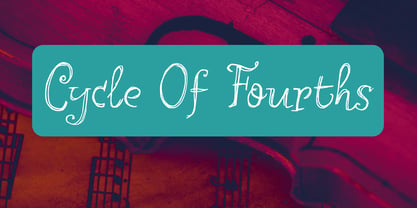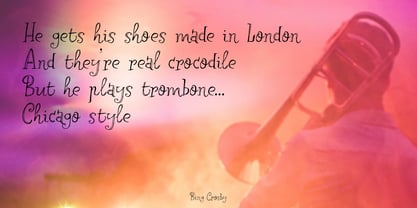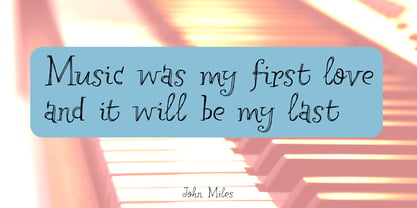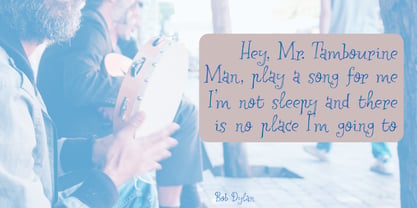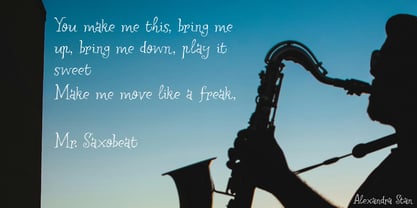
Cycle Of Fourths Pro
by Hanoded
The Cycle Of Fourths Pro Font Family was designed by David Kerkhoff and published by Hanoded. Cycle Of Fourths Pro contains 2 styles and family package options. More about this family
Cycle Of Fourths (or Circle Of Fourths) is a musical term. It is a listing of notes that move up by successive perfect fourths intervals. You can forget about that, I was just looking for a good name for this curly font and this is what I found!
Cycle Of Fourths is an elegant, handmade font. A little curly, a little old-fashioned maybe, but also out of the ordinary and unique.
Hanoded is run by Dutchman David Kerkhoff. His fonts are a mishmash of styles, as he just creates whatever pops into his head. You will find a lot of brush fonts in his collection, as his favourite tools are brushes and Chinese ink, with cartoon style fonts and script fonts complementing his repertoire. Aside from making fonts, David occasionally guides tours in far-flung places, renovates his '30's house and tries reasoning with his wife and (teenage) kids. Not an easy task!